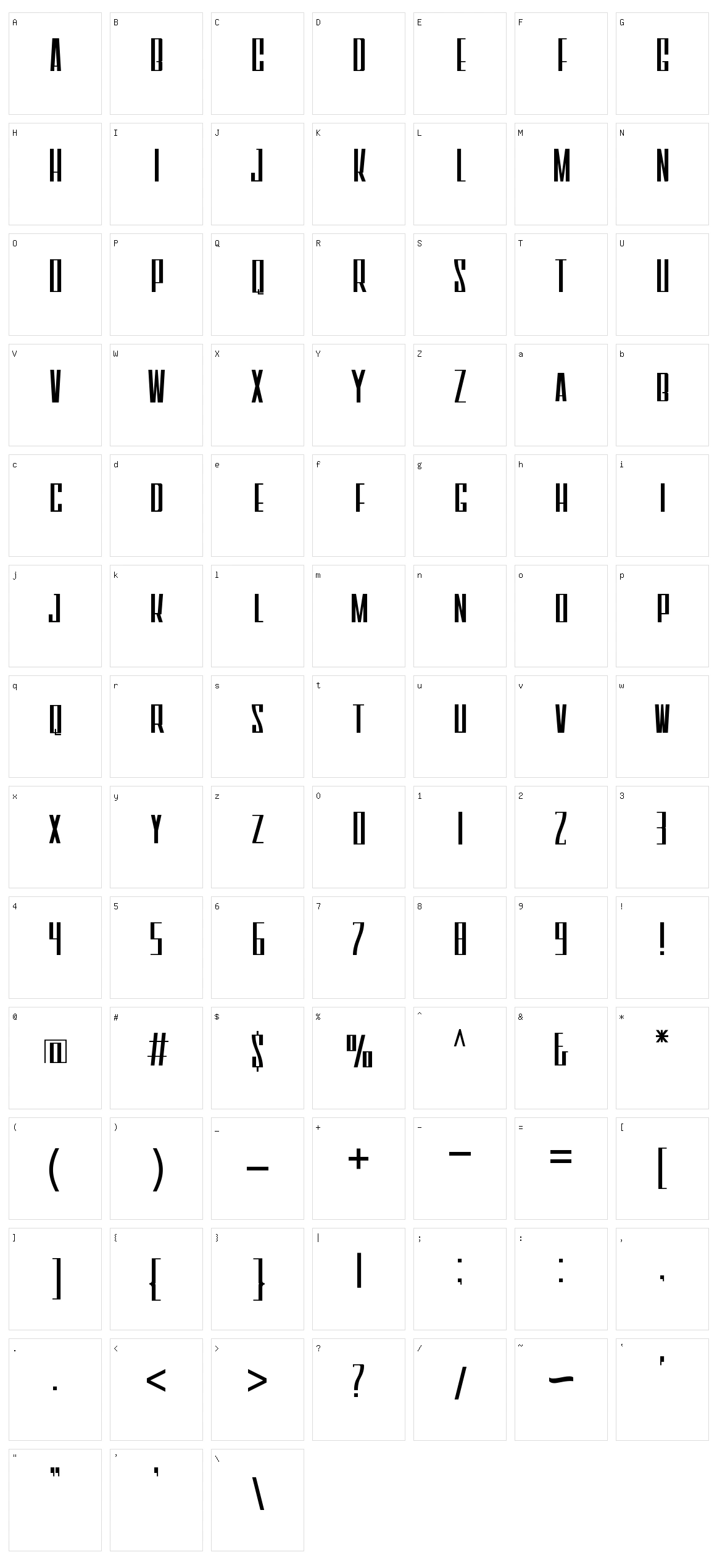
The free font Nomz is carefully designed by Mocha Frappuccino, showcasing a thoughtful balance of creativity and usability and falls under the Sans serif font style. When you download the ZIP file, it contains only 533.17 KB of font files, making it lightweight and quick to download. Please review the license details below to understand permitted usage and distribution rights. If license information is not available, we recommend using this font for personal projects only or contacting the author directly for commercial usage permissions.